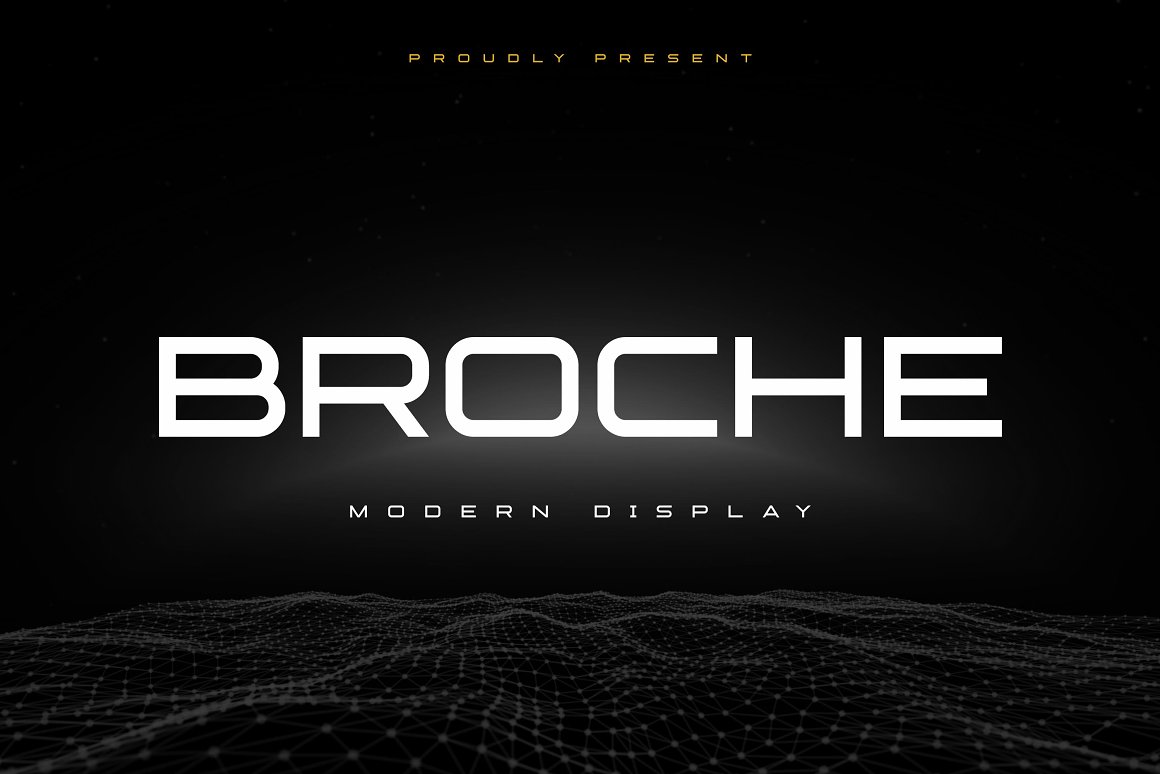
Broche Font is a free modern display sans serif font. It inspired by famous logos of Technology and brands that have very strong characteristics, very suitable for posters, t-shirt, packaging, branding, logotype and more.
Broche font with strong and challenging nuances. very suitable for the title, typography, clothes, Poster, magazines, brochures, packaging, Websites and much more for your design needs, making your designs more modern and professional.
Broche Font - Display Sans Serif Font
Type: Sans Serif, Display